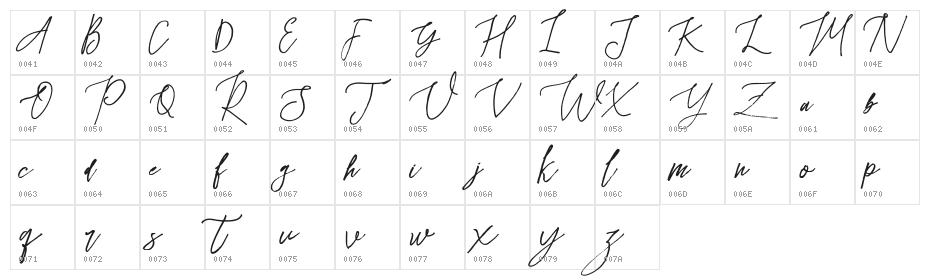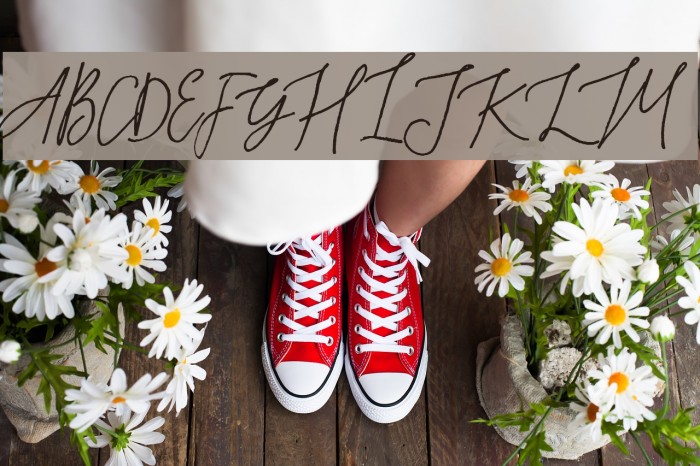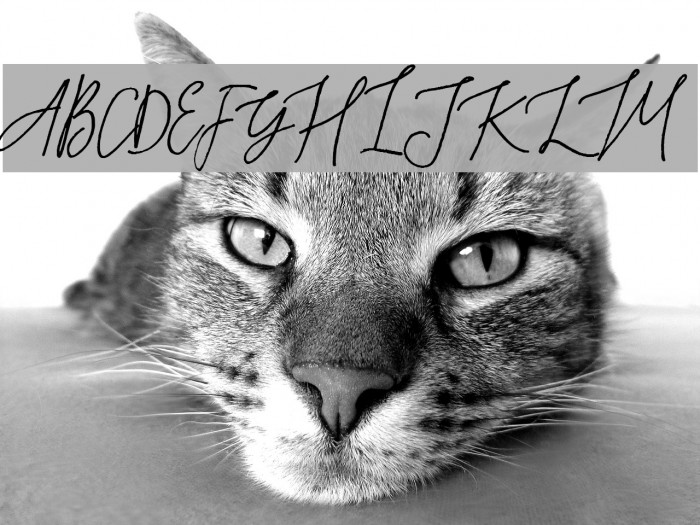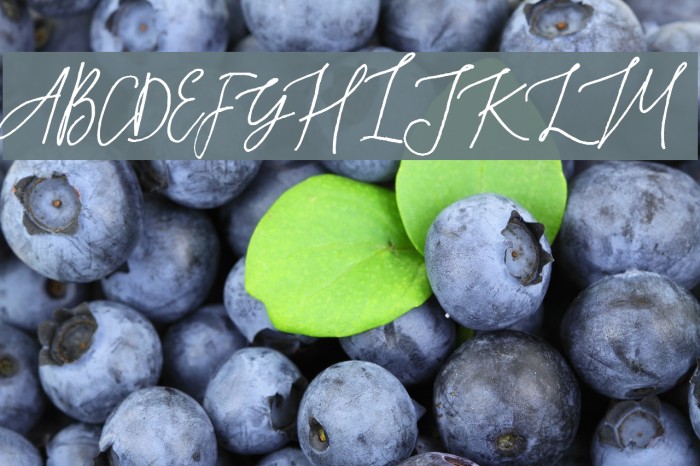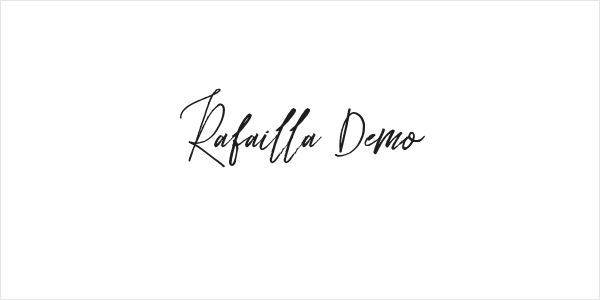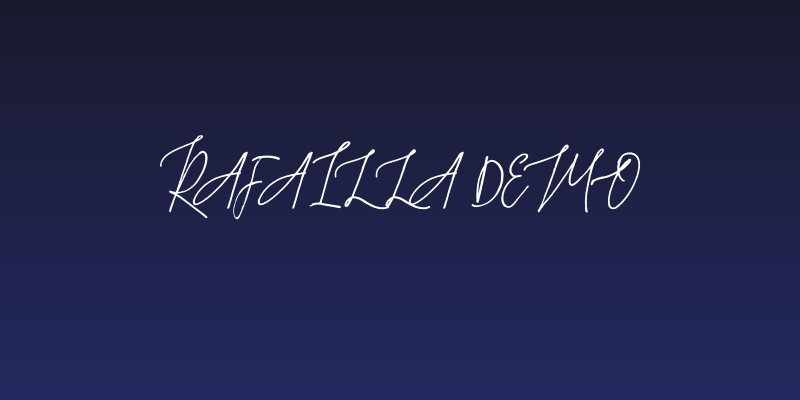
Rafailla Demo Font
Rafailla Demo Description
This font exudes a dynamic and expressive style, characterized by its fluid, cursive script that mimics natural handwriting. The uppercase letters are elegantly elongated, with sweeping ascenders and descenders that give a sense of motion and grace. The lowercase letters maintain a consistent flow, with some letters connecting seamlessly to the next, enhancing the handwritten feel. The strokes vary in thickness, adding a lively contrast that captures attention. This font is perfect for projects that require a personal touch, such as invitations, greeting cards, or branding that seeks to convey creativity and individuality.
| Proposed Projects | Ideal for invitations, greeting cards, personal branding, and creative projects. |